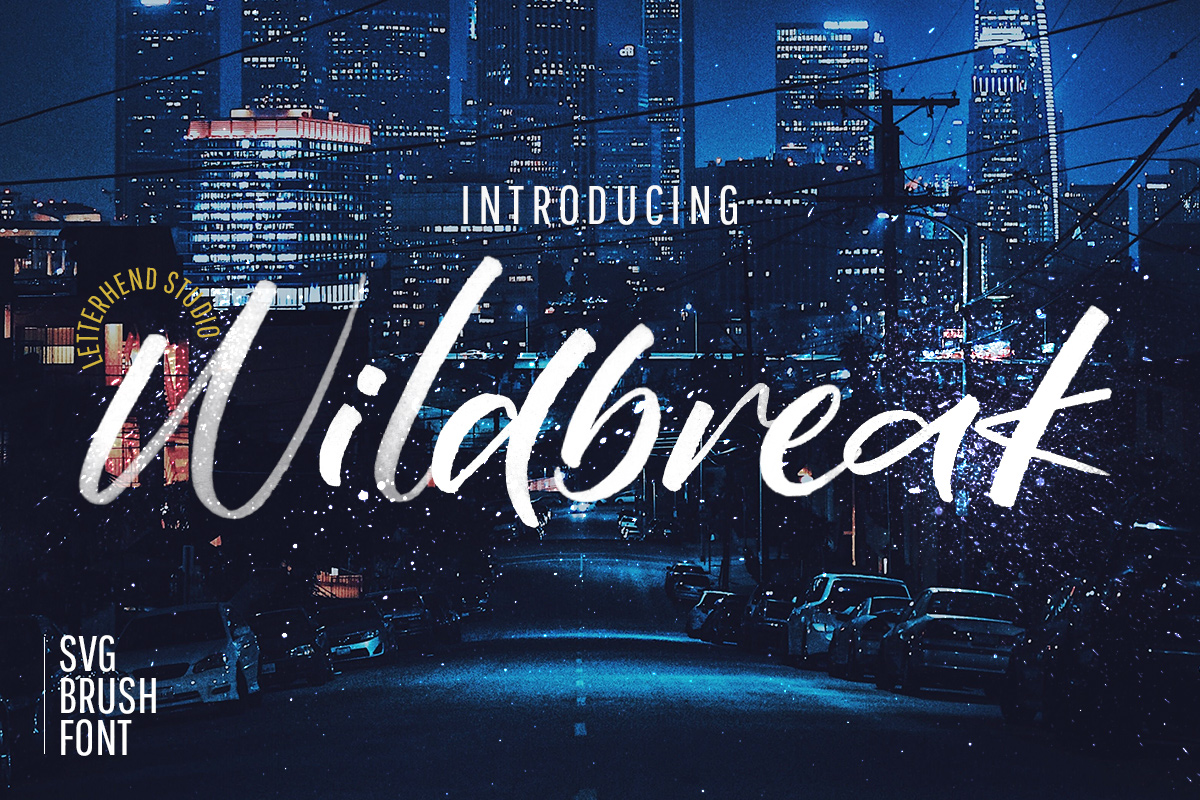
Wildbreak - SVG Brush Font is perfect for adventure sports branding, outdoor expedition marketing, wilderness camp signage, extreme adventure tour graphics, rugged outdoor gear packaging, wild nature photography portfolios, untamed lifestyle blog headers, freedom-focused social media campaigns, rebellious artistic projects, and spontaneous creative expressions. This untamed typeface brings raw energy to adventure tourism companies, outdoor equipment manufacturers, wilderness survival brands, extreme sports organizations, and wild lifestyle movements.
Wildbreak - SVG Brush Font is exciting because it captures the untamed spirit of breaking free from civilization through its wildly expressive brush-painted letterforms that celebrate raw freedom and natural rebellion. The font features dynamic characters with wilderness proportions and brush stroke textures that evoke the feeling of escaping into nature, the liberation of wild adventures, and the authentic energy of artistic expression unbound by convention. Its distinctive SVG construction demonstrates digital innovation with carefully preserved brush authenticity that creates an immediate sense of wild freedom and artistic rebellion. The font's untamed presence and brush authenticity make it perfect for brands seeking to communicate wild adventure, artistic freedom, and the liberating power of breaking away from the ordinary in their visual communications.
Wildbreak - SVG Brush Font family includes various wild styles: Light Brush, Regular Brush, Bold Brush, Heavy Brush, Wild Brush, Free Brush, Rough Brush, Natural Brush, Condensed Brush, Extended Brush, Untamed Brush, and Adventure variants. Each family member maintains the core wild DNA while offering different brush intensities for diverse adventure-focused design applications. The comprehensive font collection ensures consistent wild branding across outdoor campaigns, adventure products, and freedom-focused communication materials.
Wildbreak - SVG Brush Font provides designers with an exceptional tool for creating authentic and wildly expressive visual communications. This remarkable typeface seamlessly blends wilderness aesthetics with cutting-edge SVG technology, making it ideal for both digital adventure platforms and premium outdoor-themed print materials. The font's carefully preserved brush details and wild rhythm create memorable visual experiences that resonate with audiences seeking adventure, artistic freedom, and the untamed spirit of natural rebellion.
Whether you're creating adventure brand identities, designing outdoor marketing materials, developing wild website headers, or crafting freedom-focused promotional campaigns, Wildbreak - SVG Brush Font delivers outstanding wild appeal and brush authenticity. The font's distinctive untamed personality excels in adventure logos, outdoor packaging design, wild applications, and freedom projects where artistic rebellion and untamed expression are essential.